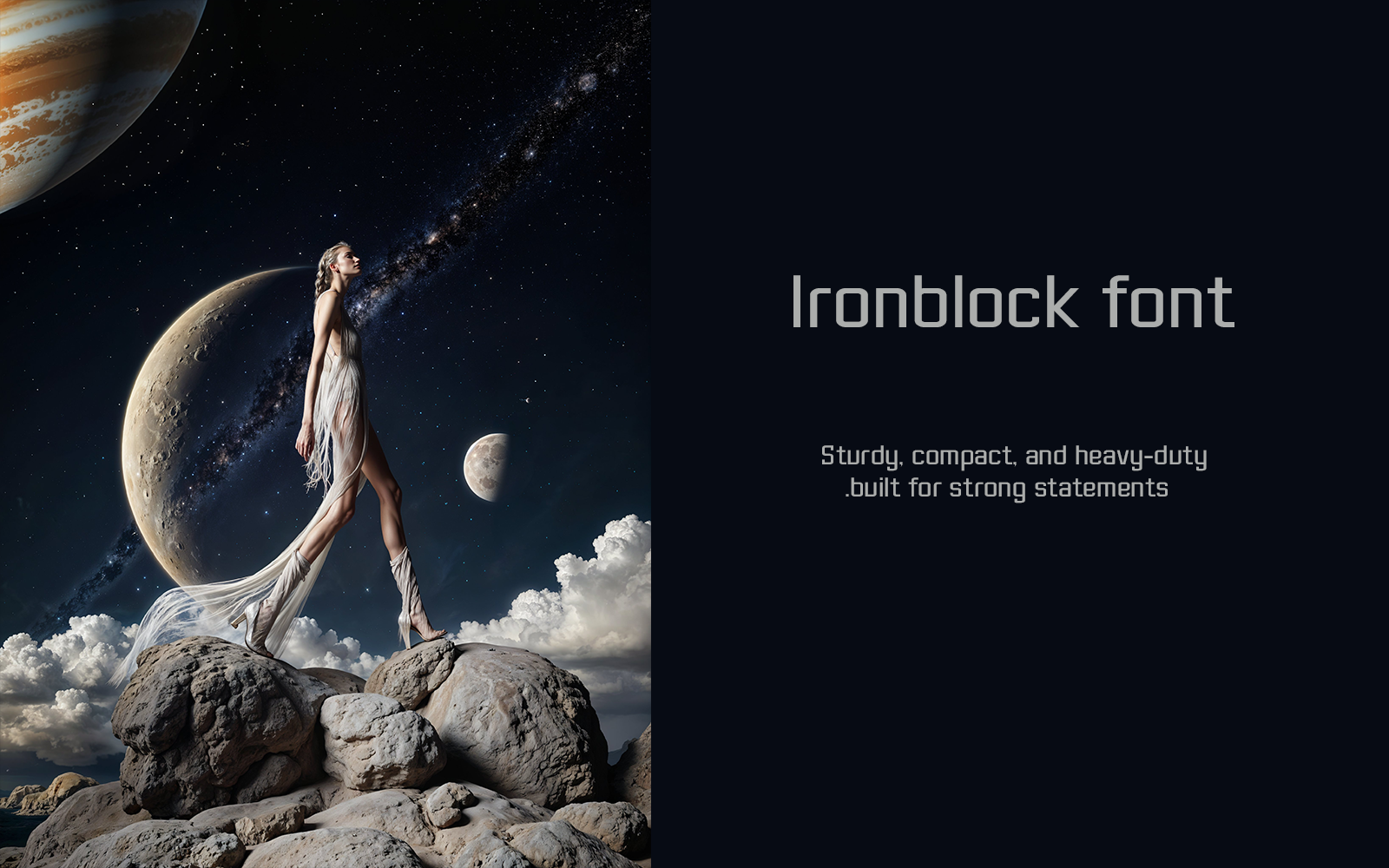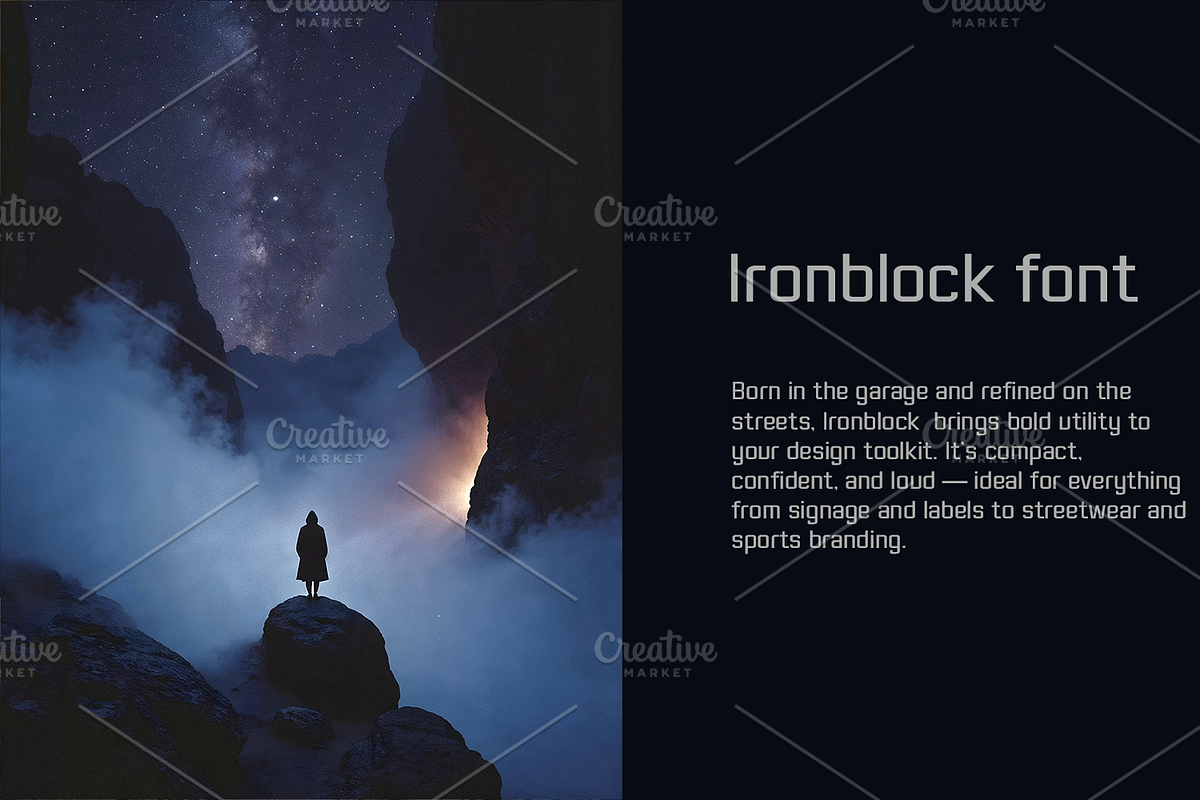
🔥 Introducing Ironblock — Fuel Your Message.
Born in the garage and refined on the streets, Ironblock brings bold utility to your design toolkit. It’s compact, confident, and loud — ideal for everything from signage and labels to streetwear and sports branding.
🛠️ Industrial-grade geometry 🧃 Perfect for packaging, branding & posters 🚗 Inspired by Americana, speed, and muscle cars
With Ironblock, every word has weight, every letter has presence. Whether you're revving up a logo or driving a message home, this font delivers maximum impact — with zero drag.
🏁 Ironblock — Design with horsepower.